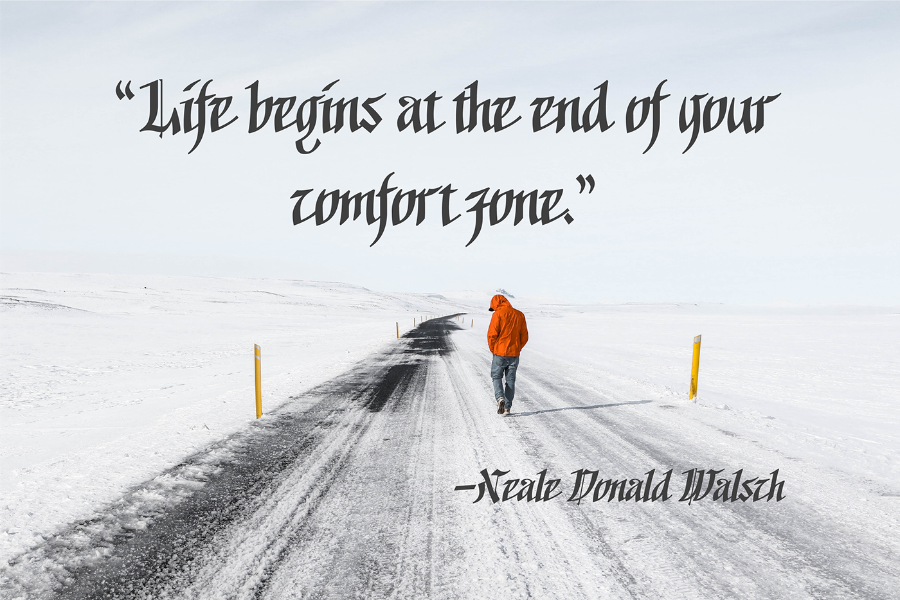
Goalthink Typeface
Goalthink Typeface – Free Version
This font is especially for you if you need to add tenderness to your project. Introducing Goalthink Font! Goalthink designed and shared by Tzu-yuan Yin. The word Goalthink is a variant of the Gothic. This set of font is intended to be a goal-think of the combination of traditional Goethe fonts and personal hand-writing.  It is perfect for use in logo design, arts & crafts projects, branding, signage, weddings and much more. I hope you enjoy using Inky Hand Script.